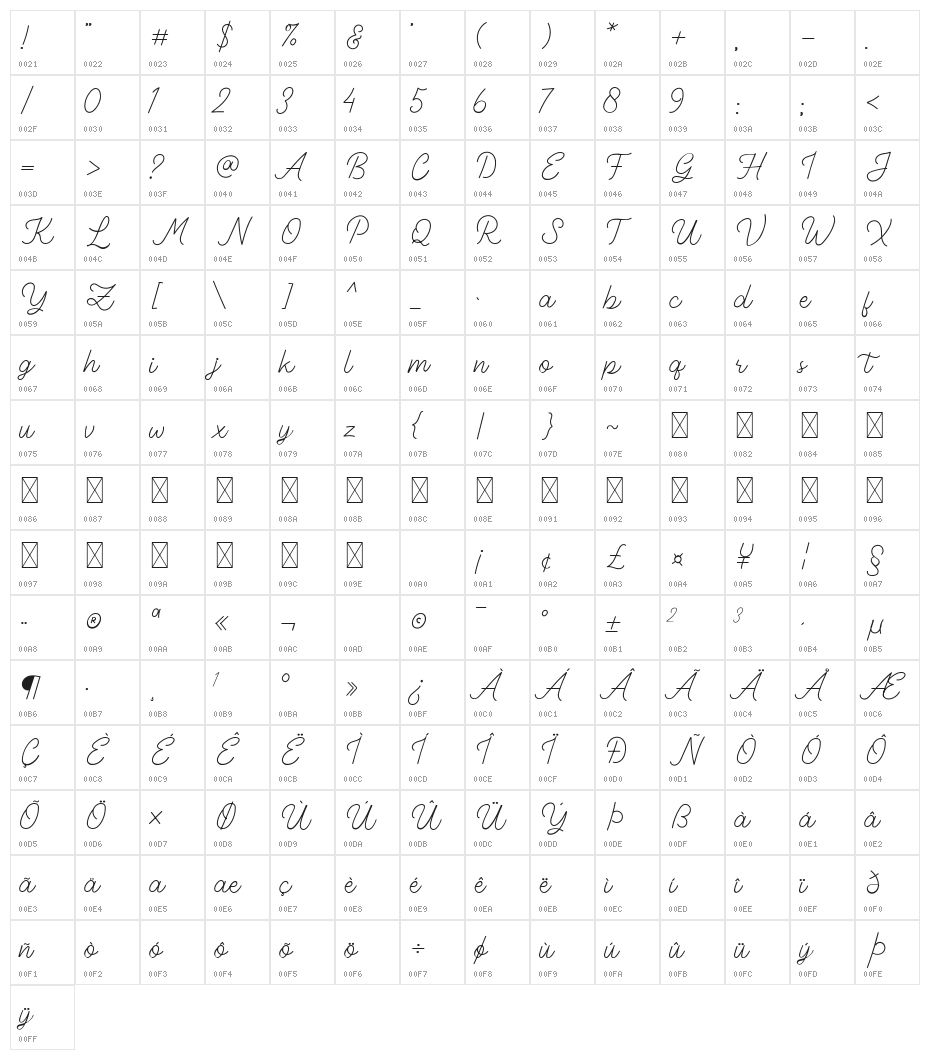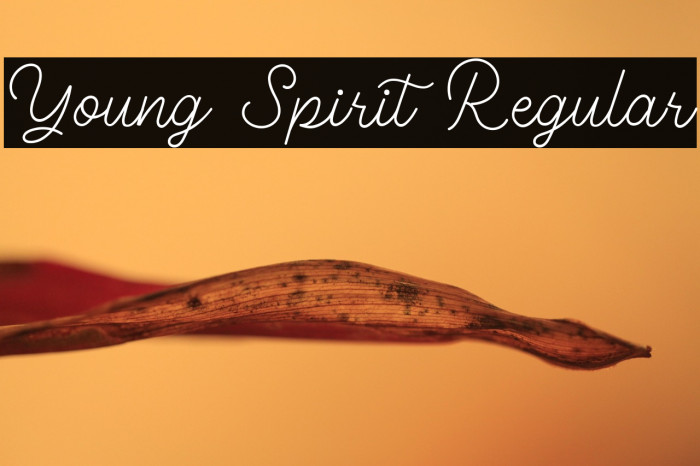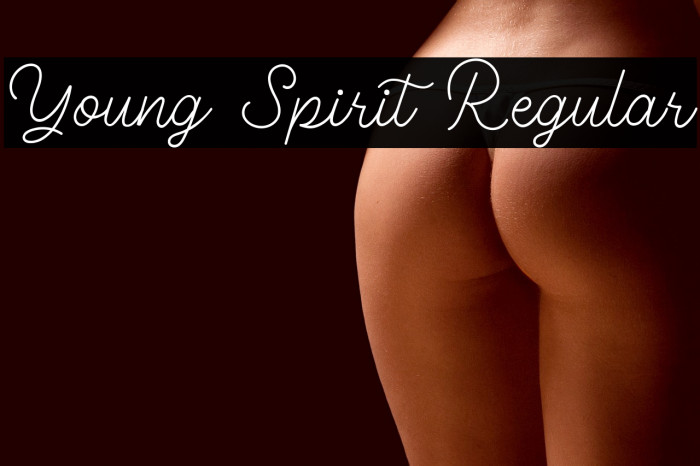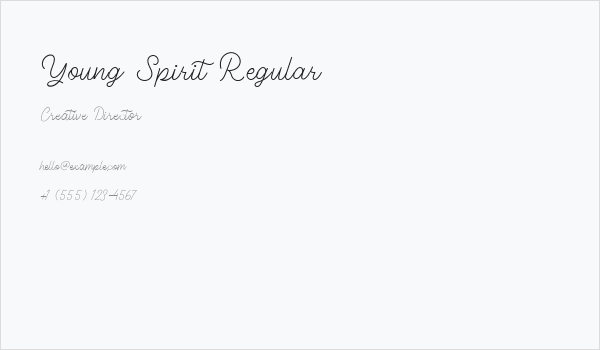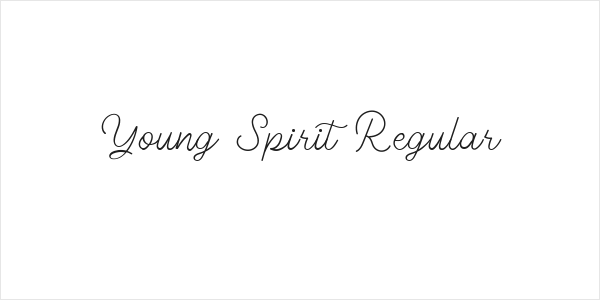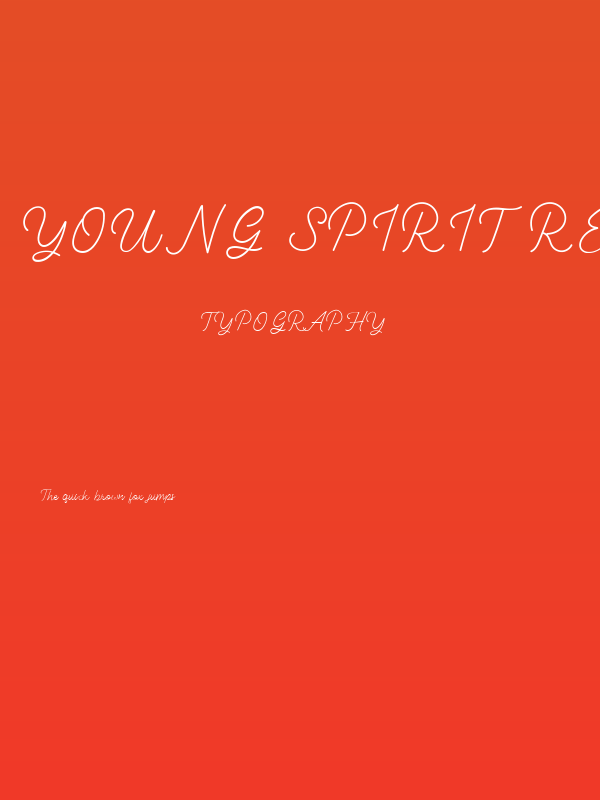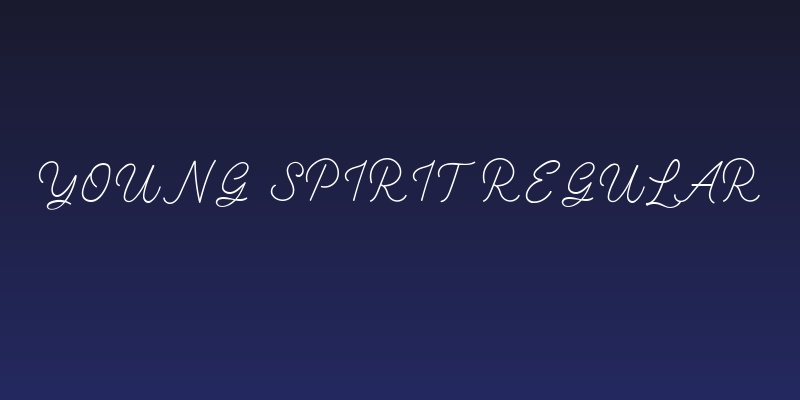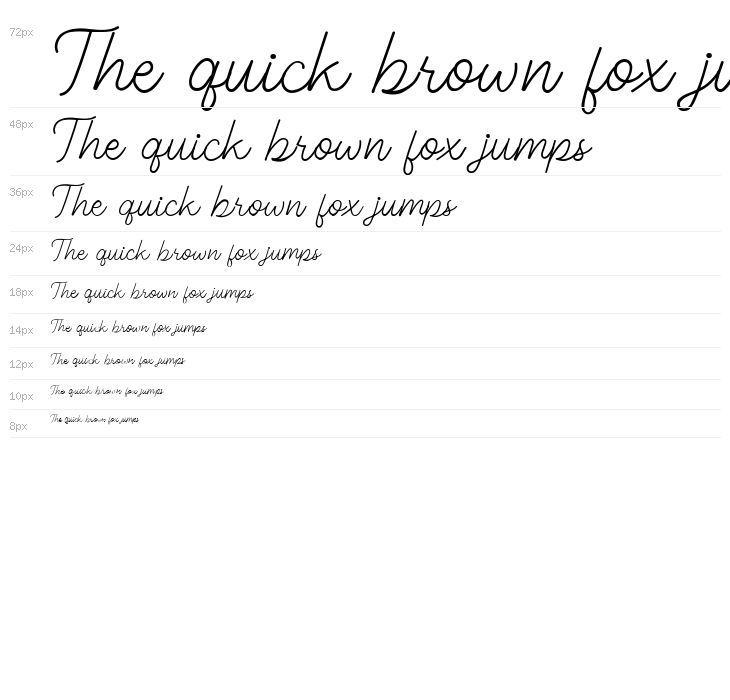
Young Spirit Regular Font
Young Spirit Regular Description
This font exudes a youthful and energetic vibe with its flowing, cursive style. The letters are elegantly connected, creating a sense of movement and fluidity. The uppercase characters maintain a consistent height, while the lowercase letters have a playful bounce, adding to the font's charm. The numerals are clear and easy to read, complementing the overall design. Special characters are thoughtfully integrated, maintaining the font's cohesive look. This font is perfect for projects that require a personal touch, such as invitations, greeting cards, or branding materials.
Use CaseLogos, Invitations, Greeting Cards
Proposed ProjectsIdeal for invitations, greeting cards, personal branding, and creative projects.